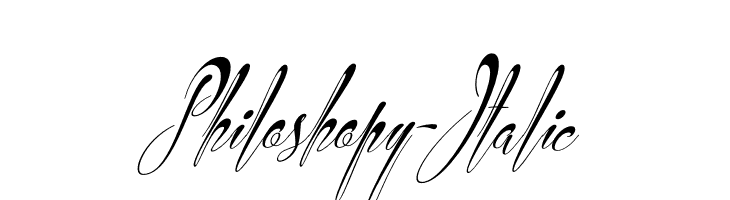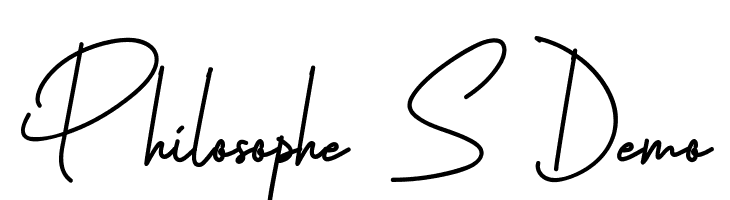
An elegant, high-contrast script font with ornate curves and flourishes.
An elegant script font with high contrast and decorative swashes.
An elegant, high-contrast italic script font with flowing lines.
An elegant, italicized script font with flowing curves and ornate details.
A fluid and elegant handwritten font with a natural, flowing style.
A classic serif font with elegant strokes and high contrast.
A classic serif font with elegant strokes and moderate contrast.
A bold serif font with strong, elegant strokes and classic appeal.
A bold serif font with a classic and authoritative style.
A bold, italic serif font with a classic and dynamic style.